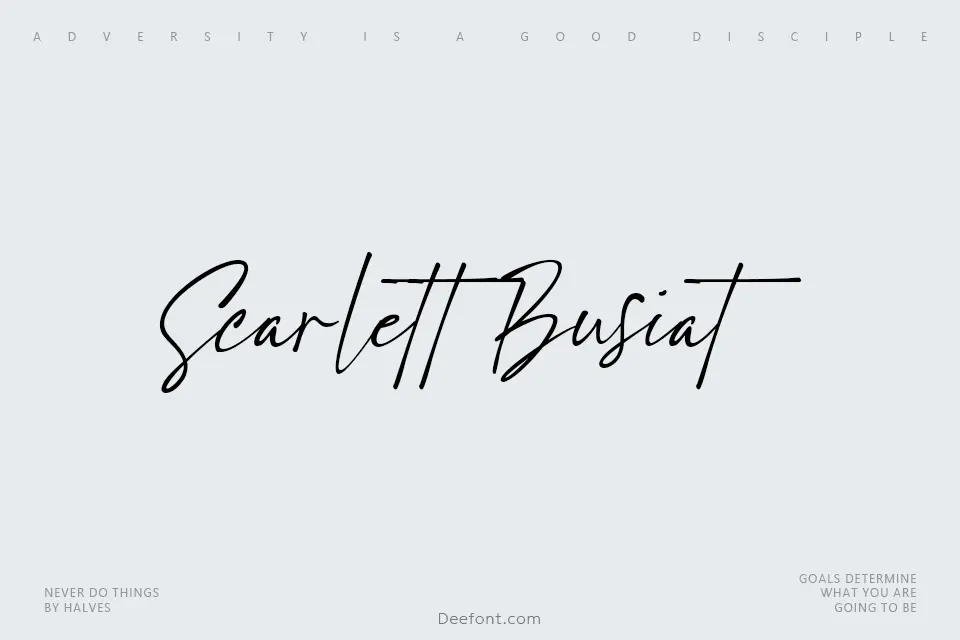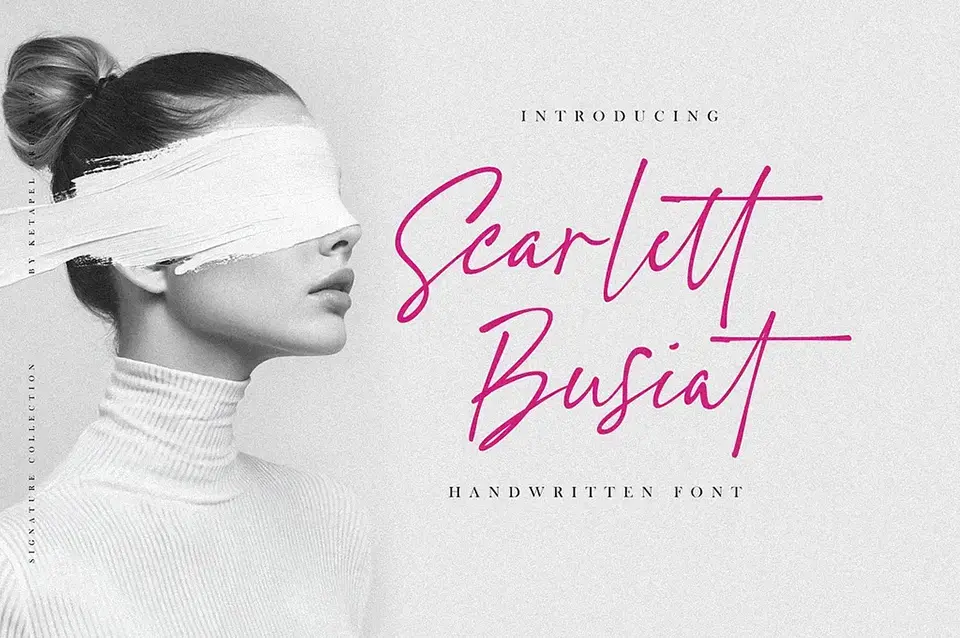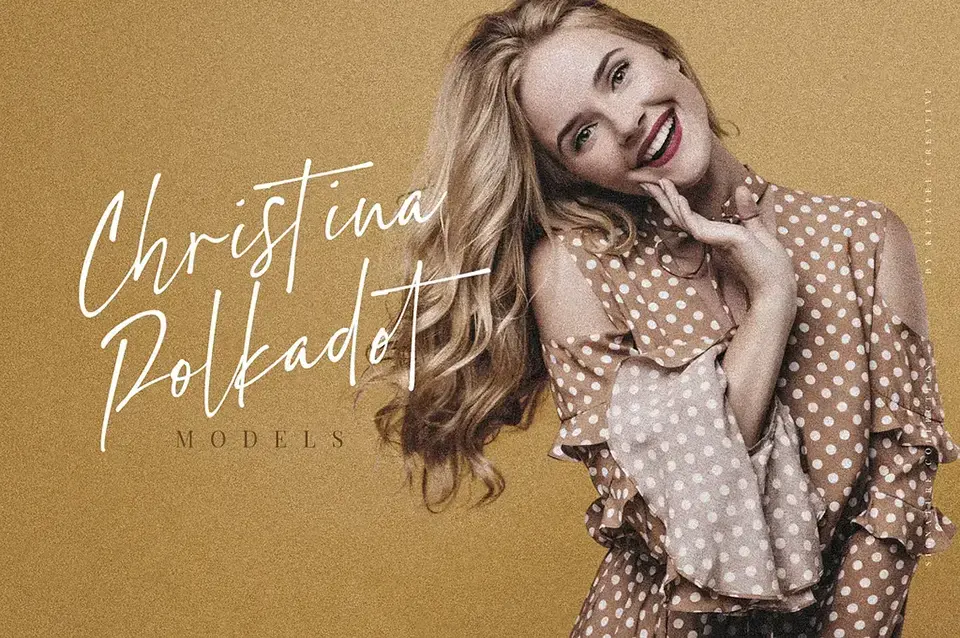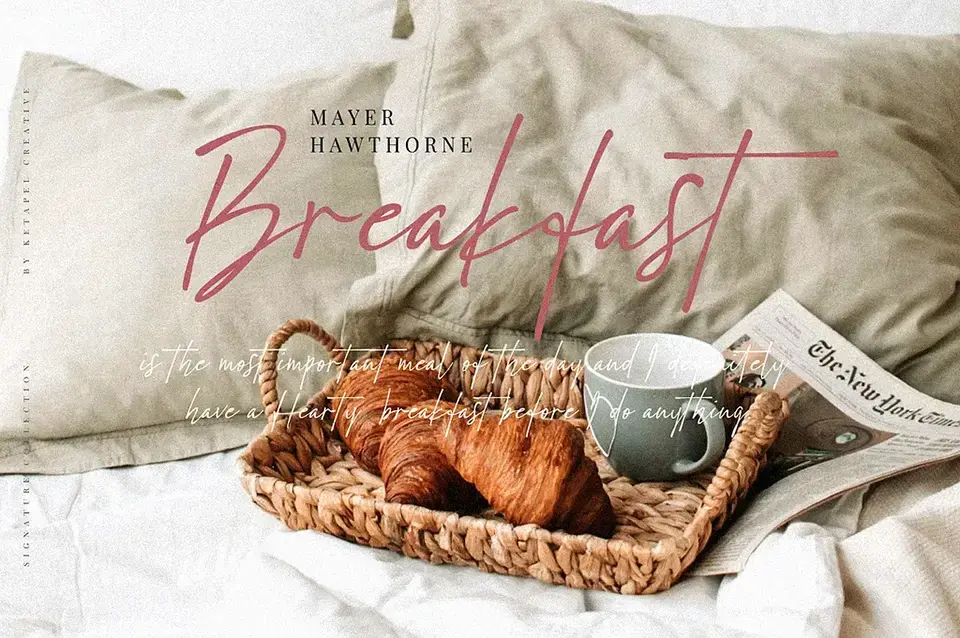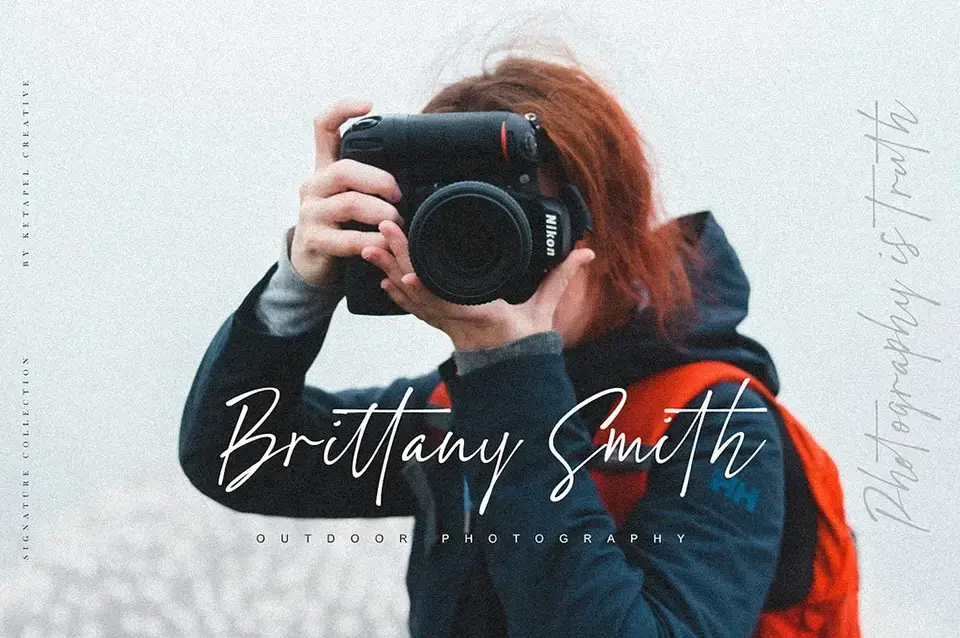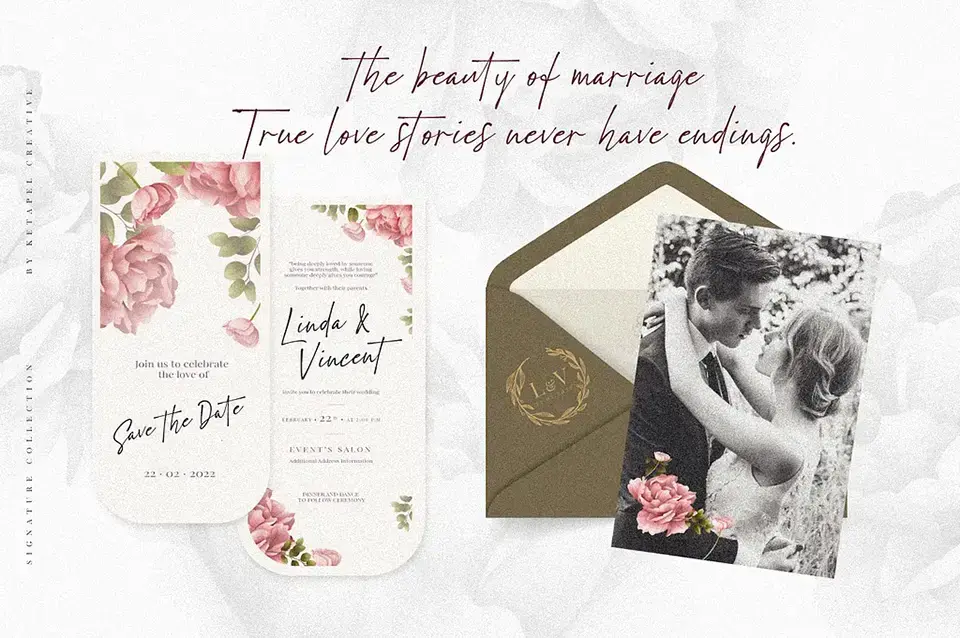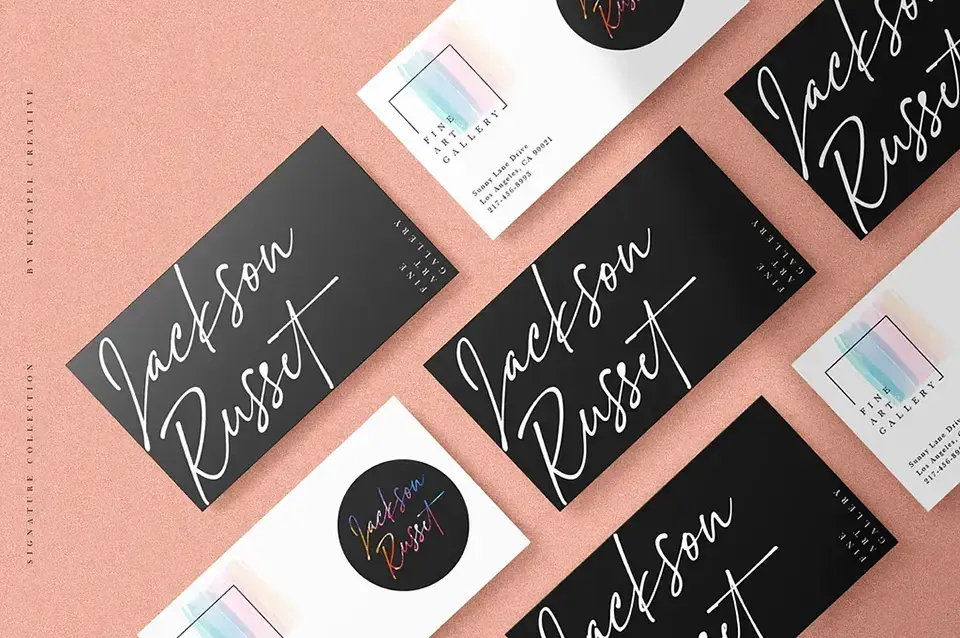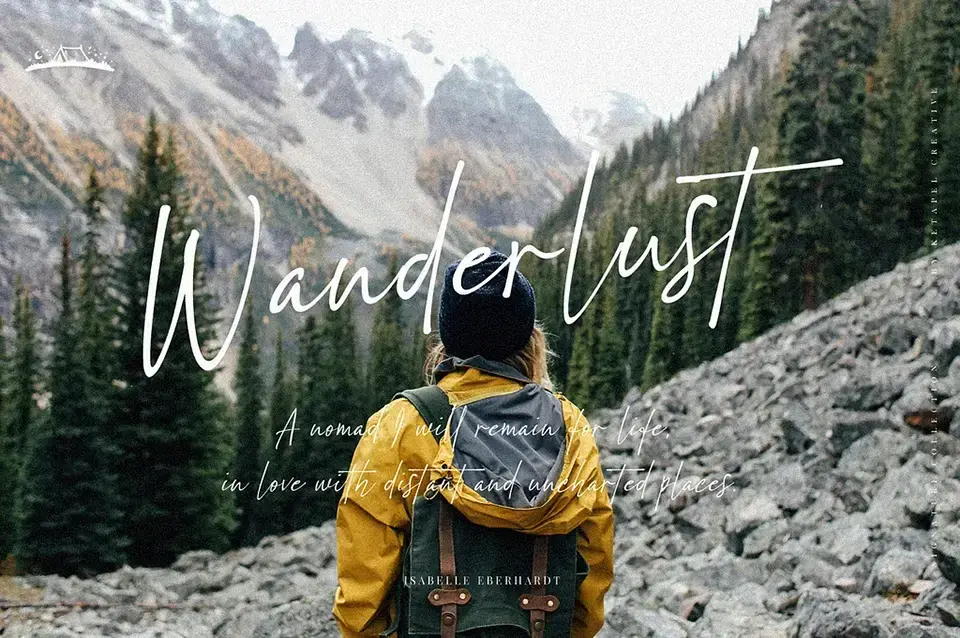
Scarlett Busiat Font
Scarlett Busiat is a distinctive handwritten script typeface characterized by graceful curves, fluid strokes, and refined letterforms that exude elegance and personalization. The font features smooth connections between characters, creating a natural calligraphic aesthetic ideal for wedding invitations, thank you cards, greeting cards, logos, packaging design, and any project requiring a personalized, sophisticated touch. With its 195 glyphs and polished appearance, Scarlett Busiat brings an upscale, intimate quality to both print and digital designs, making it an excellent choice for luxury branding and special occasion materials.